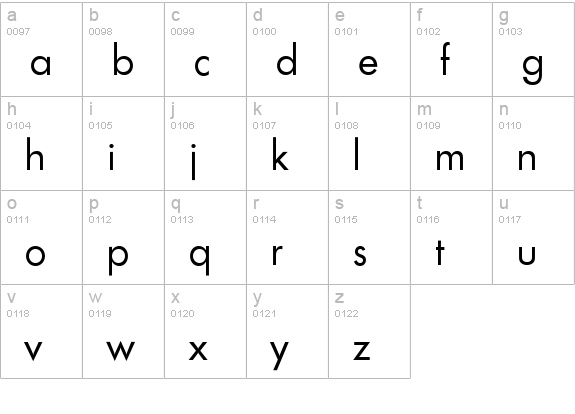
Limerick-Regular is the standard, neutral variant in the Limerick typeface family \xE2\x80\x94 well suited to general body text, paragraphs, and standard typographic work.
Limerick-Regular font is a charming and versatile typeface that combines elegance with a touch of playfulness. With its clean lines and classic design, this font is perfect for a wide range of projects, from branding to invitations to posters. Whether you're looking to add a touch of sophistication to your designs or inject a bit of whimsy, Limerick-Regular font has got you covered. And the best part? It's completely free to download at FontsMarket.com! So you can easily access this high-quality font without breaking the bank. Don't miss out on the opportunity to elevate your designs with Limerick-Regular font today!